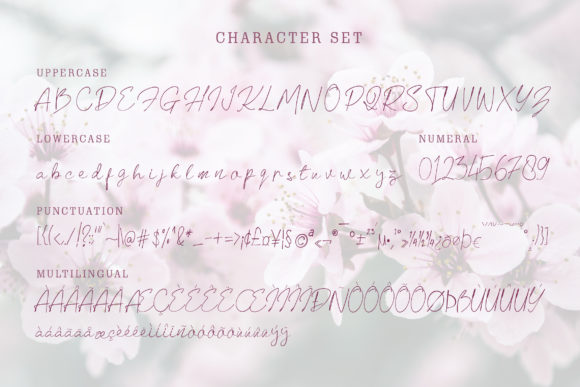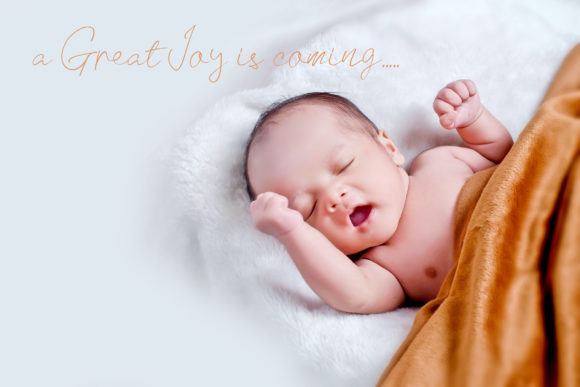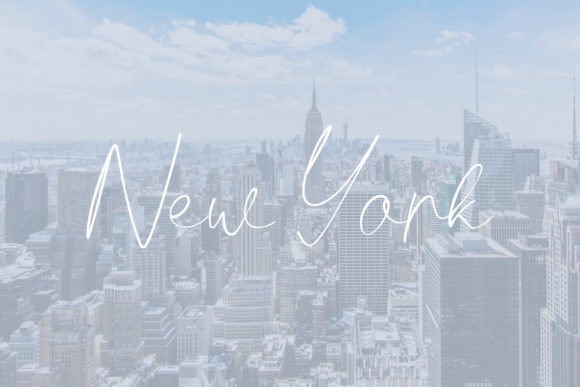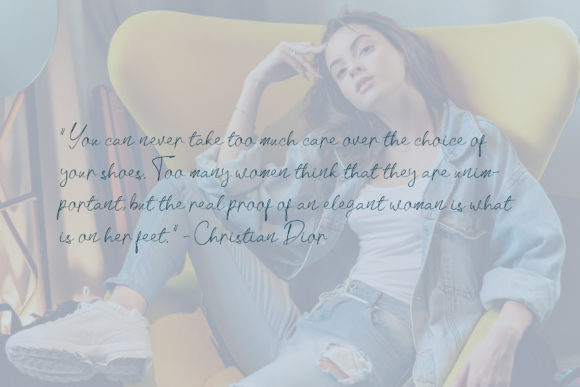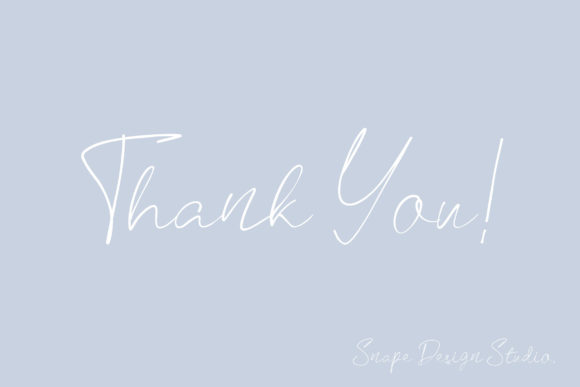
Introduction to Kamalah Font
Kamalah is a thin, whimsical, and flowing script font.
Featuring characters that dance along the baseline, this font will add a luxury spark to any design project that you wish to create .
Key Features of Kamalah Font